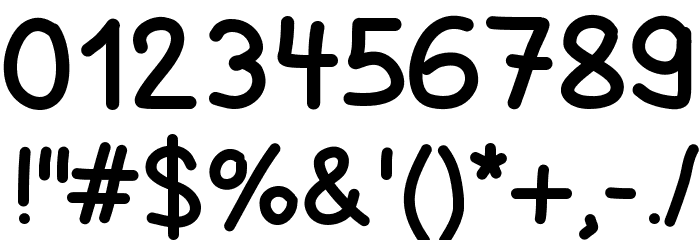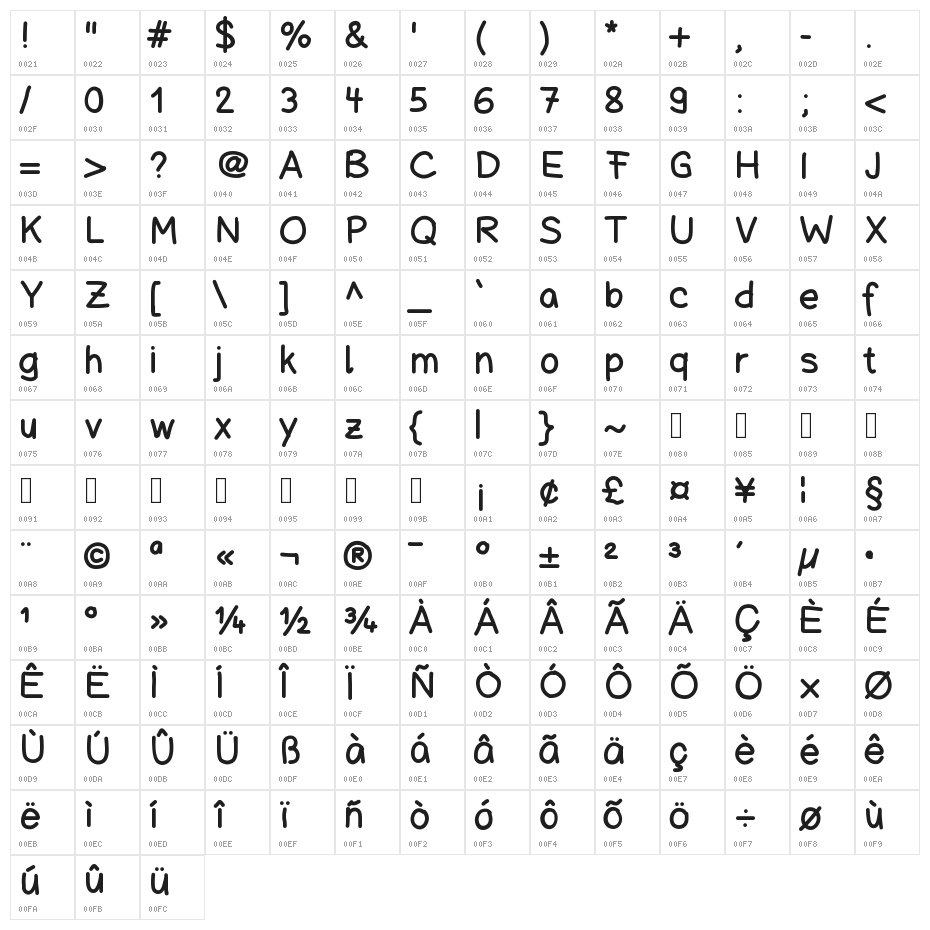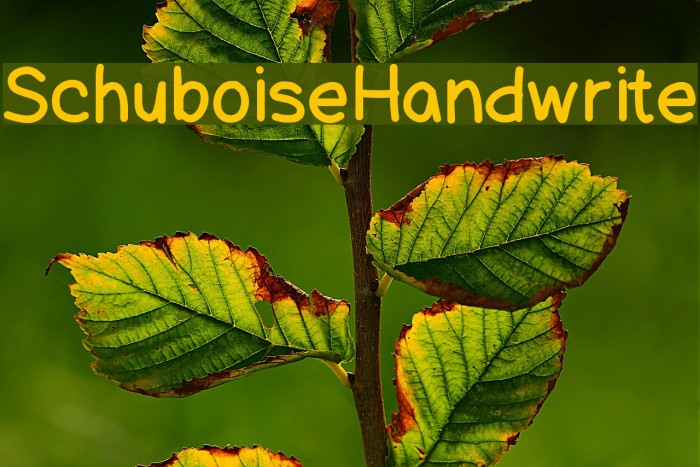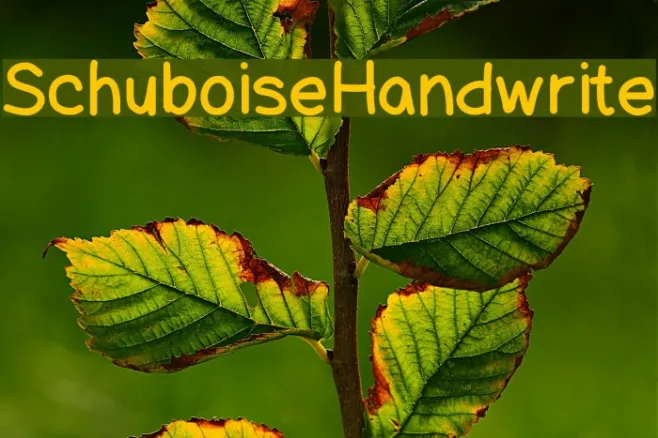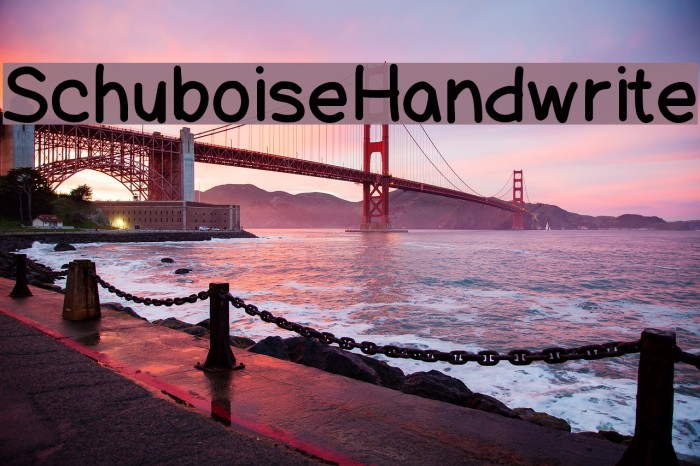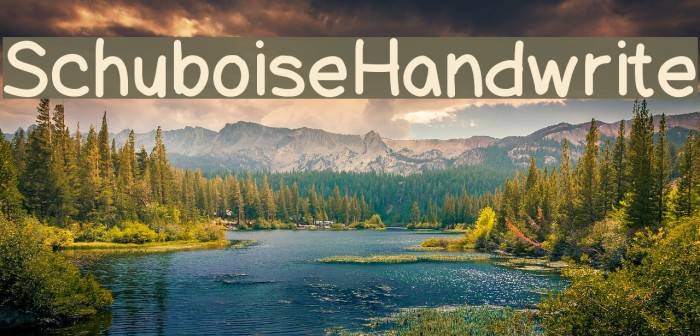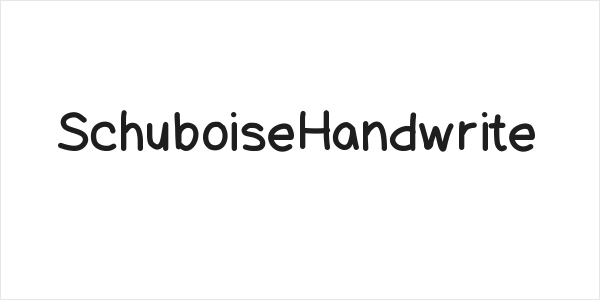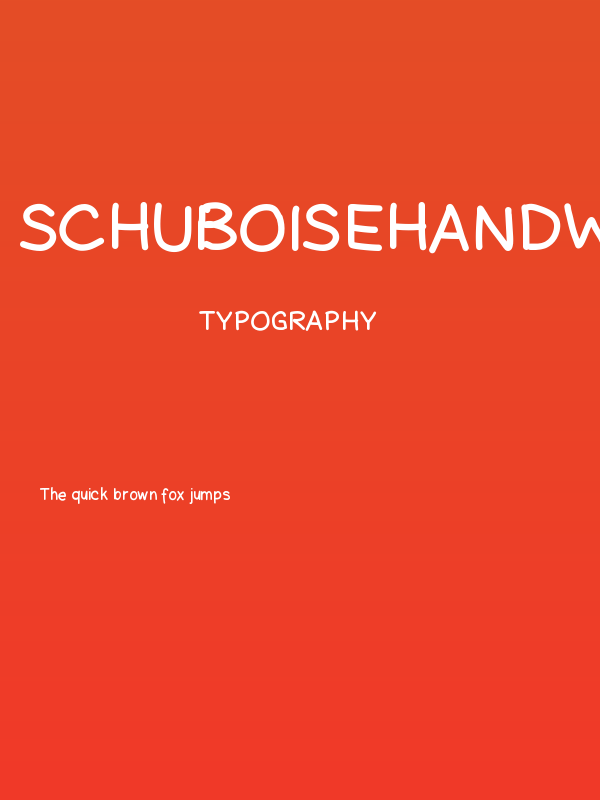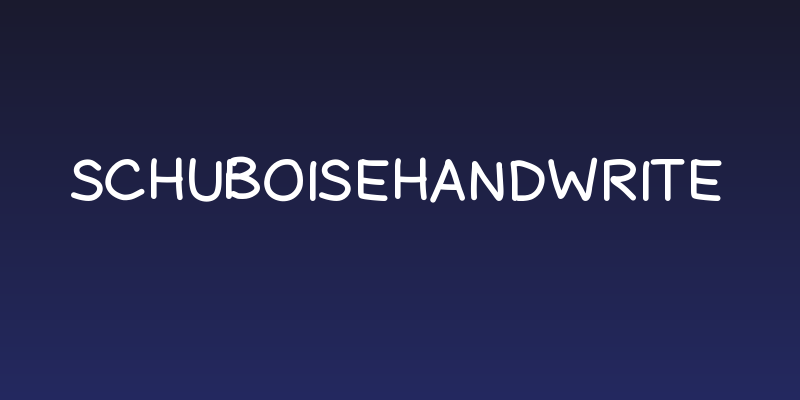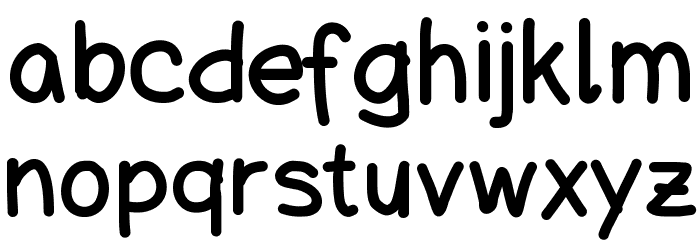
SchuboiseHandwrite Font
SchuboiseHandwrite Description
This font features a playful and casual handwritten style, characterized by its rounded and slightly irregular letterforms. The strokes are consistent in width, giving it a uniform appearance while maintaining a friendly and approachable vibe. The uppercase and lowercase letters are well-proportioned, with a slight slant that adds to the handwritten feel. The numerals and special characters are crafted to match the overall style, making it versatile for various uses. Its simplicity and charm make it suitable for projects that require a personal touch.
| Use Case | Headlines, Informal text, Branding |
| Proposed Projects | Ideal for greeting cards, children's books, casual branding, and social media graphics. |